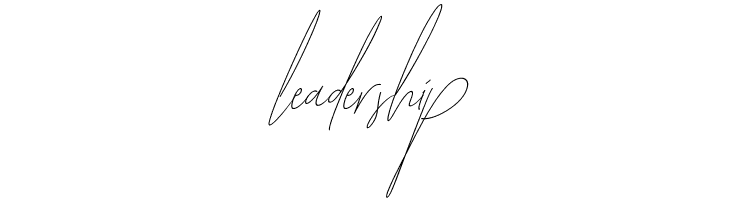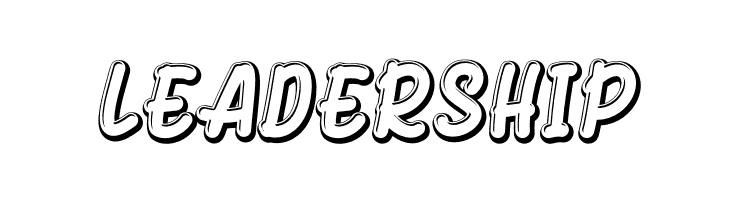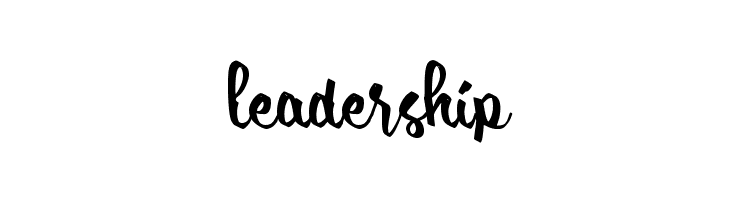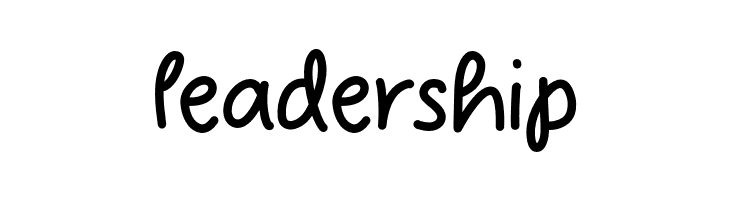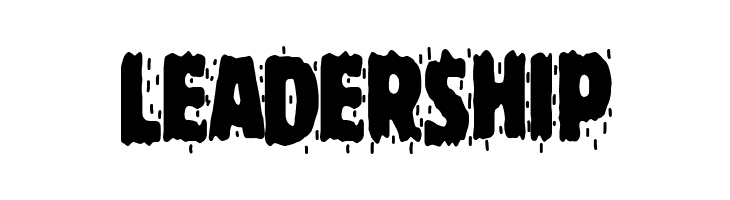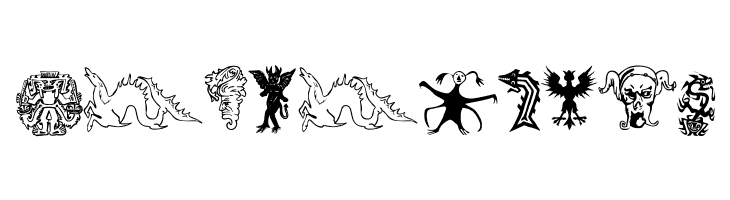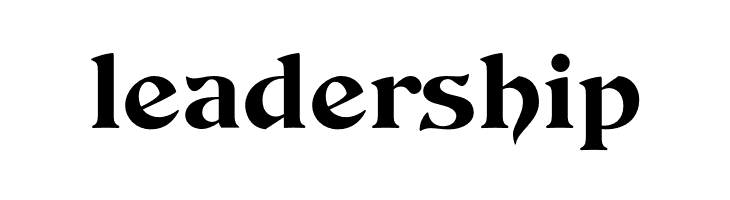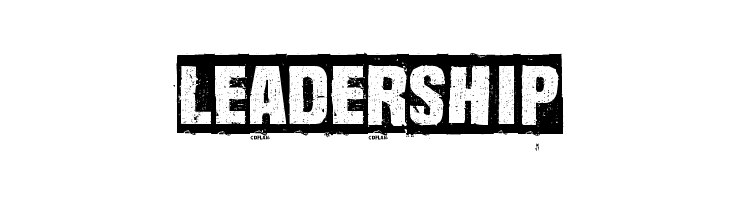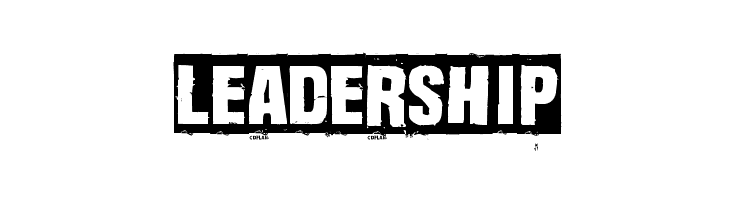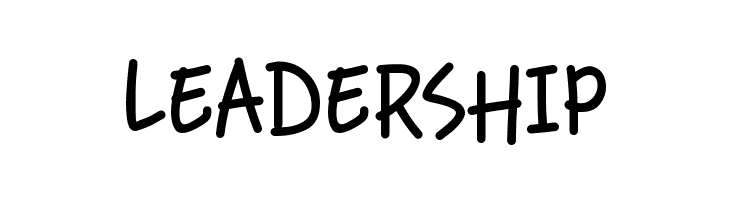
Ornamental font with mythical and fantasy-themed illustrations.
Bold, dripping display font with a horror aesthetic.
A bold, ornate font with medieval-inspired decorative elements.
A bold, decorative font with intricate patterns and a vintage-modern style.
A bold, angular font with a modern, industrial feel.
A bold, angular font with a modern, industrial style.
A modern, angular italic font with a bold and dynamic style.
A bold, angular italic font with a futuristic and edgy design.
A bold, geometric outline font with a modern and structured design.
A modern, outlined font with a dash pattern and geometric design.
A bold, shadowed font with a three-dimensional effect, perfect for striking designs.
A bold, expressive handwritten font with dynamic curves and flourishes.
A bold, distressed font with a grunge, vintage aesthetic.
A bold, distressed font with a gritty, vintage punk aesthetic.
A bold, distressed font with a gritty, urban aesthetic.
A bold, playful font with a three-dimensional outline and rounded, slightly italicized characters.
A playful, handwritten script font with bold, expressive strokes.
A bold, angular font with a futuristic, geometric design.
A futuristic, geometric font with sharp angles and a bold, edgy appearance.
A playful handwritten font with smooth, rounded letterforms and a casual style.
A bold, geometric font with Art Deco influences, perfect for striking headlines and logos.
A playful, handwritten font with smooth, rounded strokes and a casual style.
A geometric, modern font with clean lines and a minimalist aesthetic.
A geometric and modern font with clean lines and uniform stroke width.
A bold, modern sans-serif font with a geometric structure.
A bold, geometric typeface with strong, clean lines and a modern look.
A clean, modern sans-serif font with uniform stroke widths and geometric influence.
A bold, geometric font with a three-dimensional effect and angular shapes.
A refined, cursive script font with an elegant italic slant.
A decorative font with characters resembling intricate diamond shapes.
A bold, 3D geometric font with high contrast and a futuristic style.
A bold, rugged font with a vintage, industrial feel.
A bold, angular font with a Gothic-inspired, geometric style.
A distressed, script-style font with a vintage, textured appearance.
A bold, geometric font with a 3D effect and industrial style.